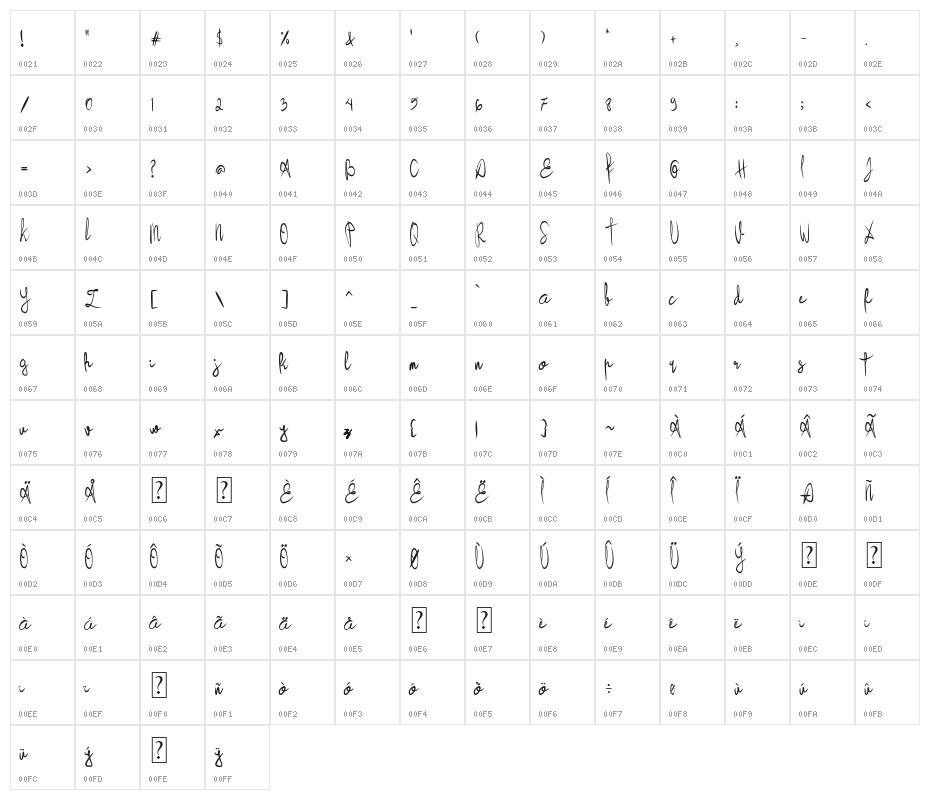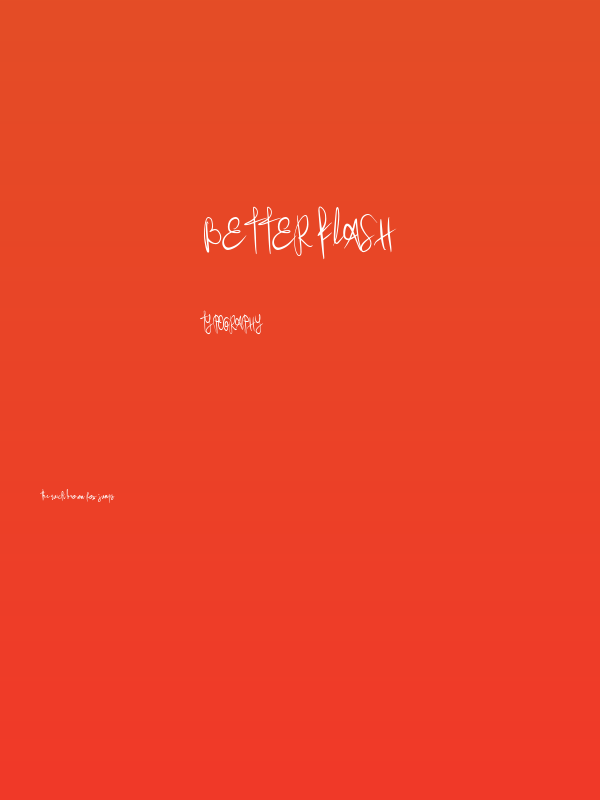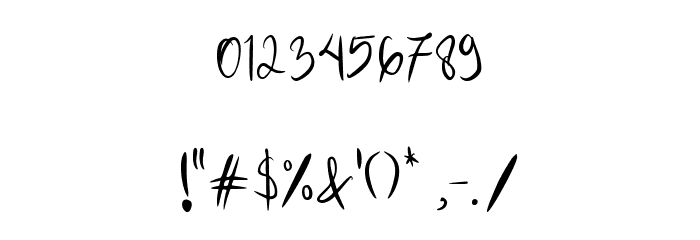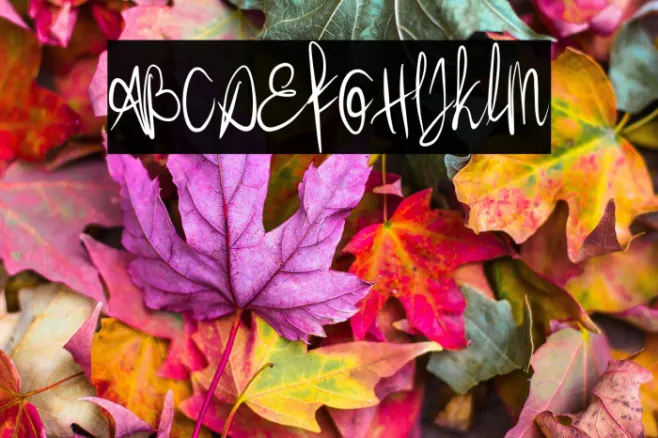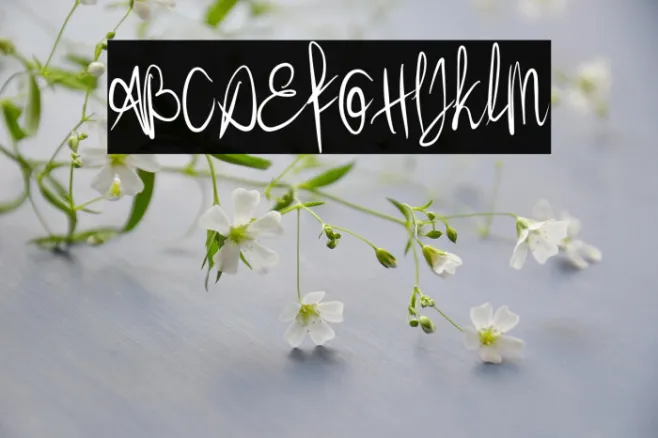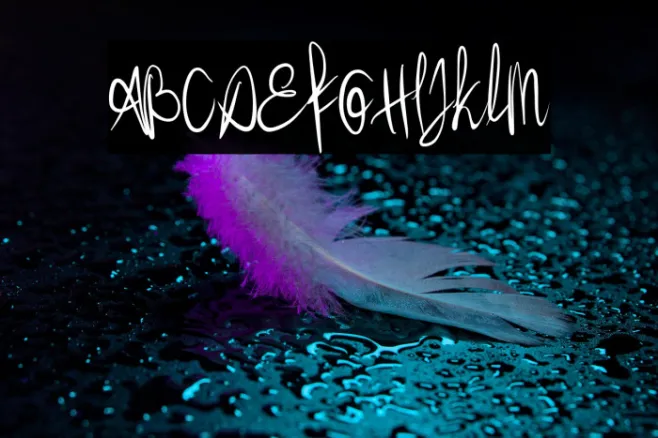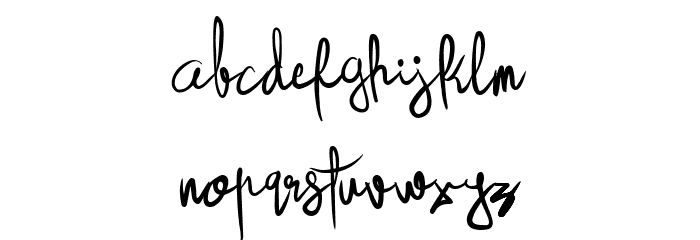
Better flash Font
Better flash Description
This font exhibits a lively and expressive handwritten style, characterized by its fluid and dynamic strokes. The uppercase letters are tall and slightly irregular, adding a playful and artistic touch. The lowercase letters maintain a consistent flow, with some letters featuring loops and swirls that enhance the font's whimsical nature. The numbers are bold and maintain the same handwritten aesthetic, while the special characters blend seamlessly with the overall design. This font's unique personality makes it stand out, offering a creative and informal vibe.